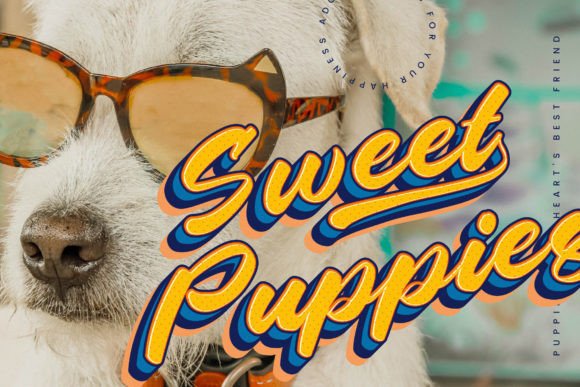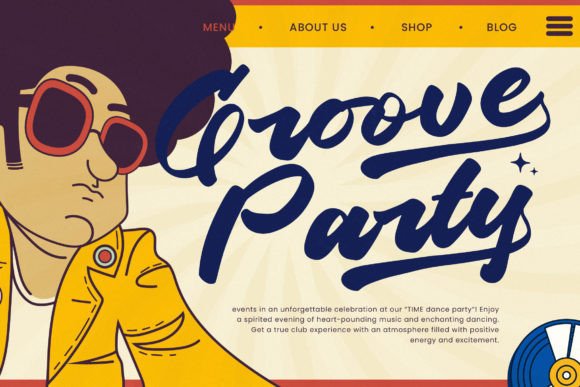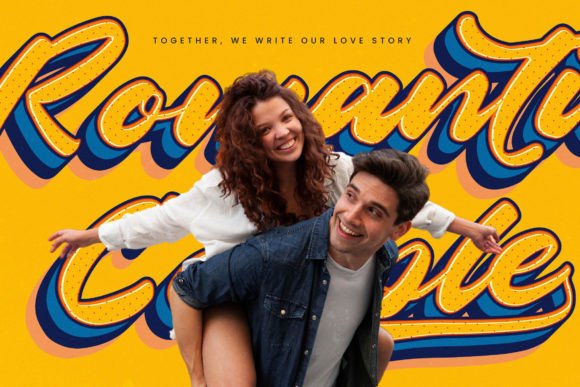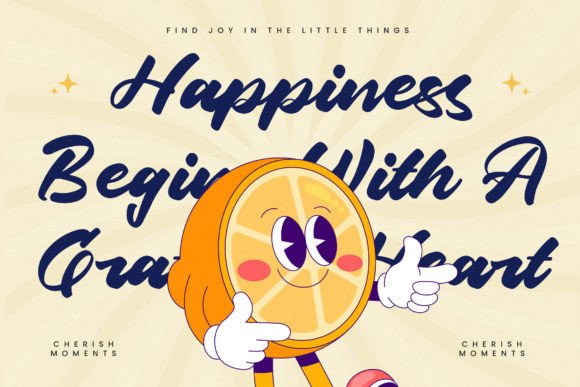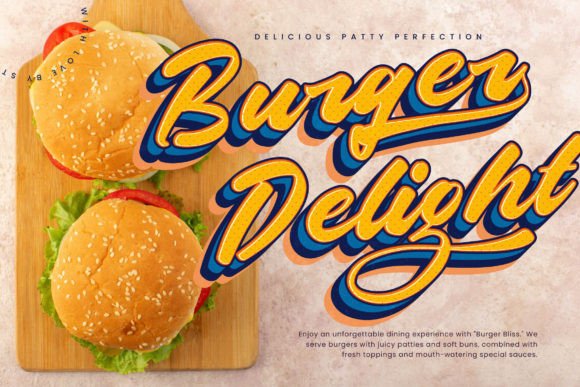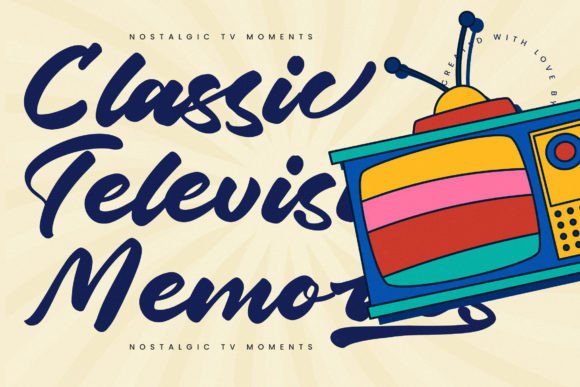
A Timeless Touch: Unlocking the Beauty of Aesthetic Timeglow Font
There’s something magical about the moment when a design comes together, and you know you’ve created something truly special. The fonts are perfectly balanced, the colors are just right, and the overall aesthetic is nothing short of breathtaking. For designers, this moment is what makes all the hard work worth it.
Enter Aesthetic Timeglow Font, a Luxury Script font from Letterena that’s designed to elevate any project to new heights. With its elegant, retro-inspired design, this font is perfect for logos, branding projects, and even everyday items like mugs and t-shirts. Whether you’re looking to add a touch of luxury to your designs or simply want to create something truly unique, Aesthetic Timeglow Font is a valuable addition to any designer’s toolkit.
Aesthetic Timeglow Font Key Features
- Unique Characteristics: The Aesthetic Timeglow Font features a unique blend of modern and vintage elements, with intricate details and subtle texture effects that give it a distinctive, eye-catching appearance.
- Style Options: The font includes multiple style options, including regular, bold, italic, and bold-italic, allowing designers to add variety and emphasis to their text.
- Unicode Support: The font supports a wide range of Unicode characters, including Latin, Cyrillic, and Greek alphabets, making it suitable for multilingual designs.
Aesthetic Timeglow Font Review
Overall, I’m really loving the Aesthetic Timeglow Font. It’s got this dreamy, ethereal quality that’s just perfect for creative projects and designs that need a touch of whimsy ✨. The subtle gradient effects and unique letterforms really make it stand out from more generic sans-serif fonts.
- The font is highly customizable, allowing you to adjust the color and size to fit your design needs.
- The font is available in a range of weights and styles, making it easy to create a cohesive look across different elements of your design.
- The font is highly legible, even at small sizes, which is a major bonus for designers who need to work with limited space.
That being said, there are a few limitations to keep in mind ⚠️:
- The font may not be suitable for formal or corporate designs, as it has a somewhat playful and informal feel.
- The font may be a bit too “out there” for designs where you need to convey a sense of professionalism or authority.
Overall, I’d definitely recommend the Aesthetic Timeglow Font for designers who are looking to add some visual interest and personality to their projects ✨. Just be aware of its limitations, and use it sparingly to get the most out of its unique charm.
Tips for Getting the Most Out of Aesthetic Timeglow Font
Use Aesthetic Timeglow Font for creative projects that require a unique and eye-catching font.
Pair the font with bold colors and striking graphics to create a visually appealing design.
Experiment with different font sizes and styles to add depth and interest to your design.
Aesthetic Timeglow Font is perfect for:
Social media graphics and ads
Blog and website headers
Printable art and quotes